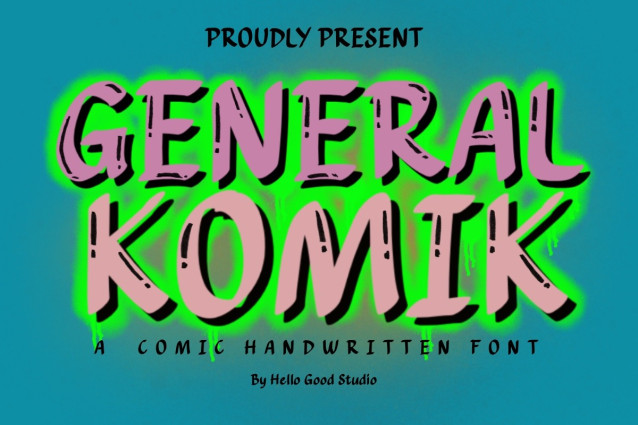
General Komik Font a sweet and friendly handwritten font. Cute and fun, this font is ideal for writing wedding invitations, cards, or any other design that might need a fun touch!